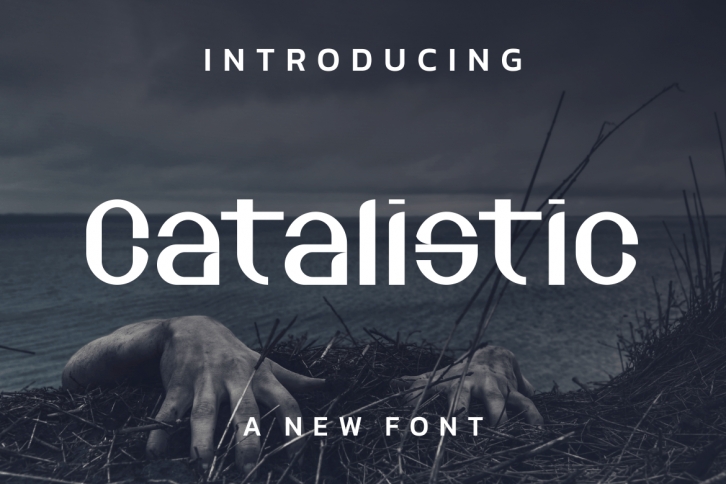
Catalistic is a cool and modern display font. Whether you’re using it for crafts, digital design, presentations, or making greeting cards, this font has the potential to become your favorite go-to font, no matter the occasion!